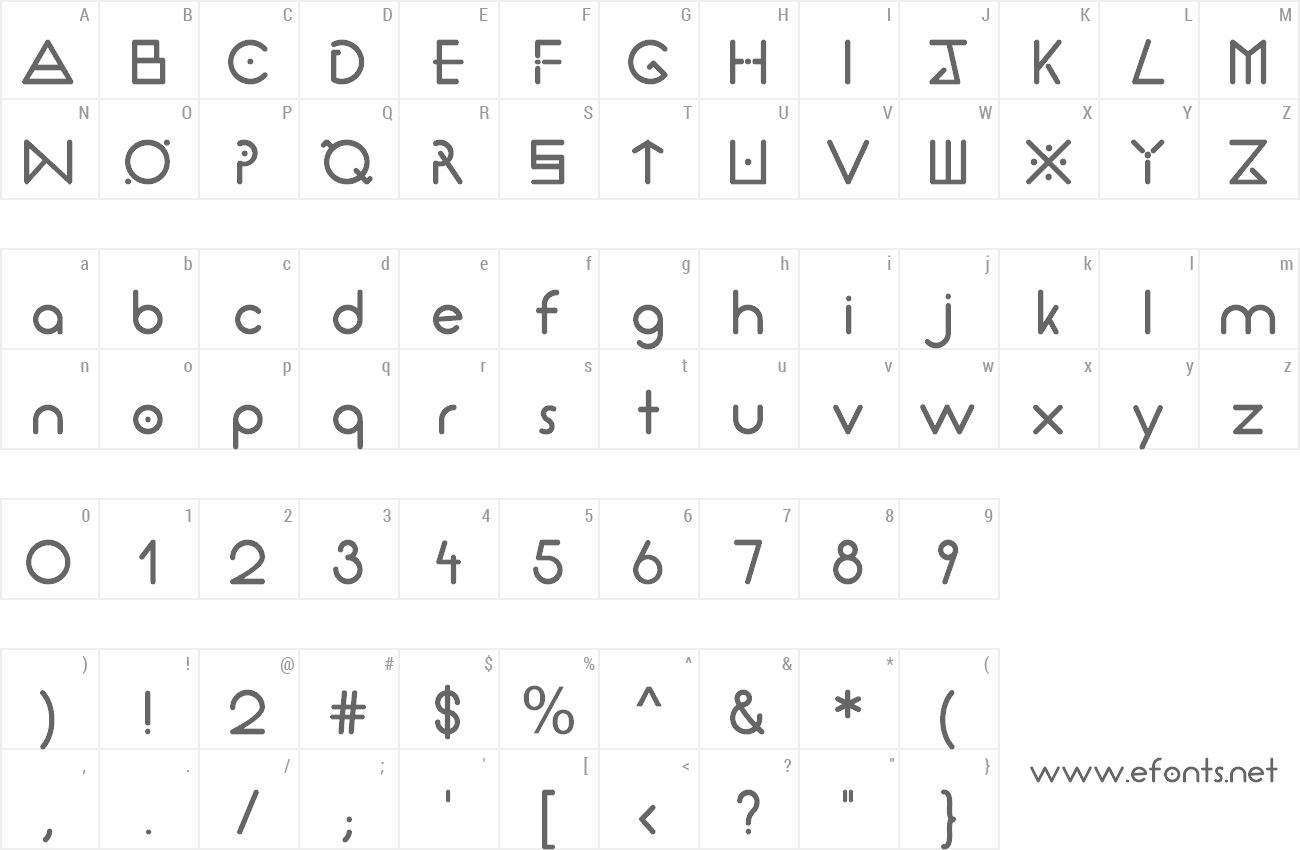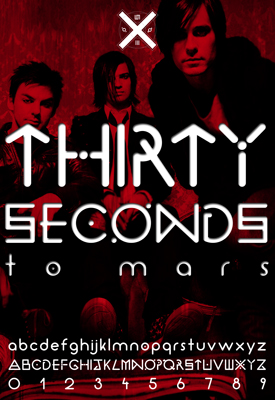
Preview and download Thirty Seconds Font. Created by Mariana Schneider in Techno Various styles with Free for personal use license.
| Note by Mariana Schneider | |
This was based on Thirty Seconds to Mars' glyphs. I do not have any kind of affiliation to the band, nor do I own any rights to the glyphs and/or images used. |